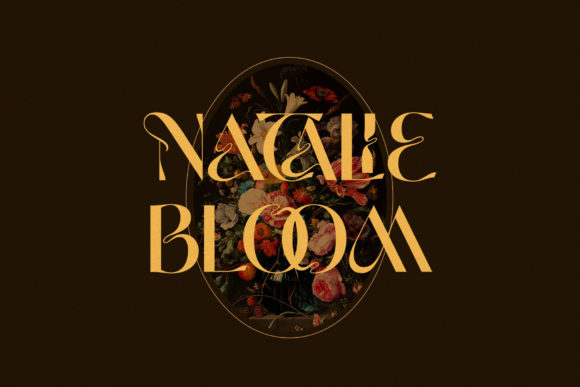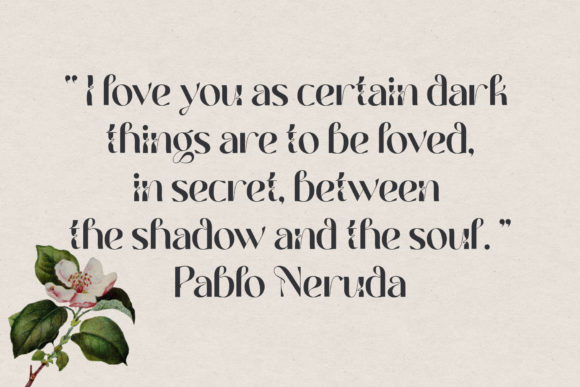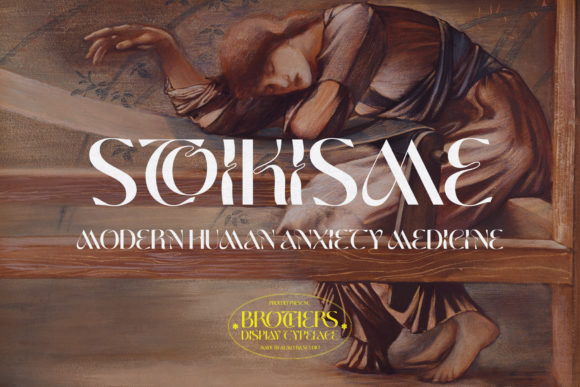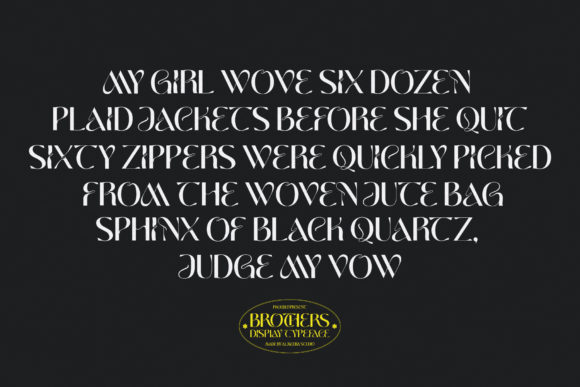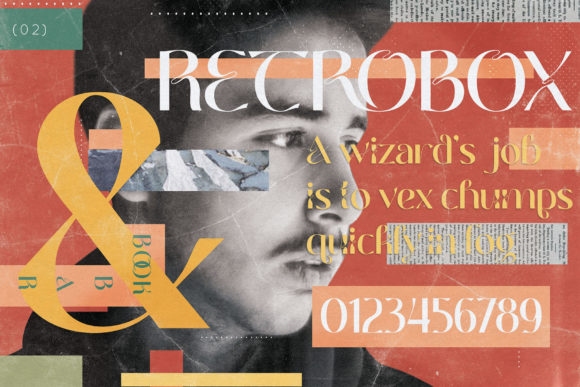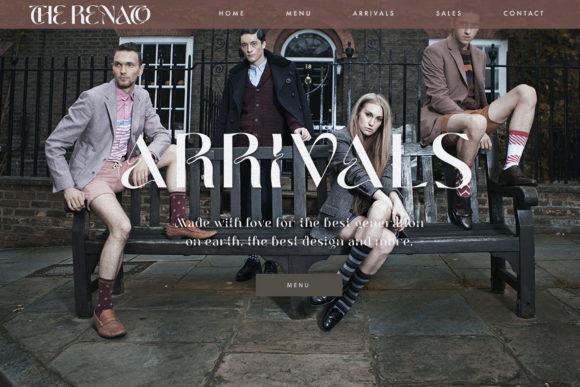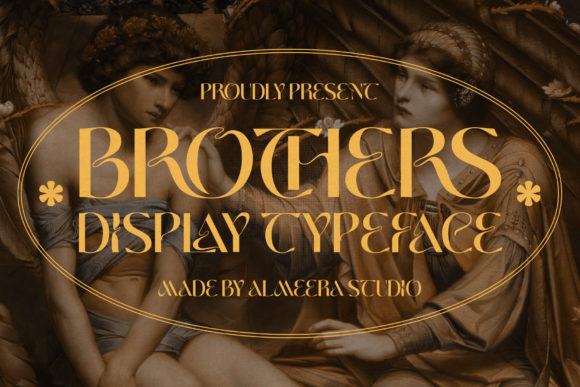
Discover the Unique Charm of Brothers Font: Elevate Your Designs with Style
In the world of typography, fonts play a crucial role in conveying messages, evoking emotions, and setting the tone for various design projects. Among the myriad of fonts available, Brothers Font stands out as a trendy and distinct display font that has captured the hearts of designers and crafters alike. Its unique charm and versatility make it an ideal choice for a wide range of applications, from wedding invitations and thank you cards to logos, business cards, and more.
What Makes Brothers Font So Special?
Brothers Font boasts a distinctive style that sets it apart from other fonts. Its trendy and modern aesthetic makes it perfect for designs that require a customized touch. Whether you’re working on a wedding invitation, a quote, or a greeting card, Brothers Font adds a touch of elegance and sophistication that elevates your design to the next level.
One of the key benefits of Brothers Font is its versatility. It’s a display font that can be used in a variety of contexts, including:
• Wedding Invitations: Add a touch of romance and elegance to your wedding invitations with Brothers Font.
• Thank You Cards: Express your gratitude in style with this beautiful font.
• Quotes: Make your quotes stand out with Brothers Font’s unique and trendy aesthetic.
• Greeting Cards: Whether it’s a birthday, anniversary, or holiday, Brothers Font is perfect for all types of greeting cards.
• Logos: Create a lasting impression with Brothers Font’s distinctive style.
• Business Cards: Elevate your business cards with a font that’s both modern and sophisticated.
Why Designers and Crafters Love Brothers Font
Designers and crafters love Brothers Font for several reasons:
• Unique Style: Brothers Font offers a unique style that’s hard to find in other fonts.
• Customization: Brothers Font allows for endless customization options, making it perfect for designers who want to add a personal touch to their work.
• High-Quality: This font is of high quality, ensuring that your designs look professional and polished.
Tips for Using Brothers Font Effectively
To get the most out of Brothers Font, here are some tips to keep in mind:
• Pair it with Other Fonts: Experiment with pairing Brothers Font with other fonts to create a unique and visually appealing design.
• Use it for Headlines: Brothers Font is perfect for headlines and titles, making it a great choice for designs that require a bold statement.
• Experiment with Colors: Don’t be afraid to experiment with different colors to find the perfect combination that complements Brothers Font.